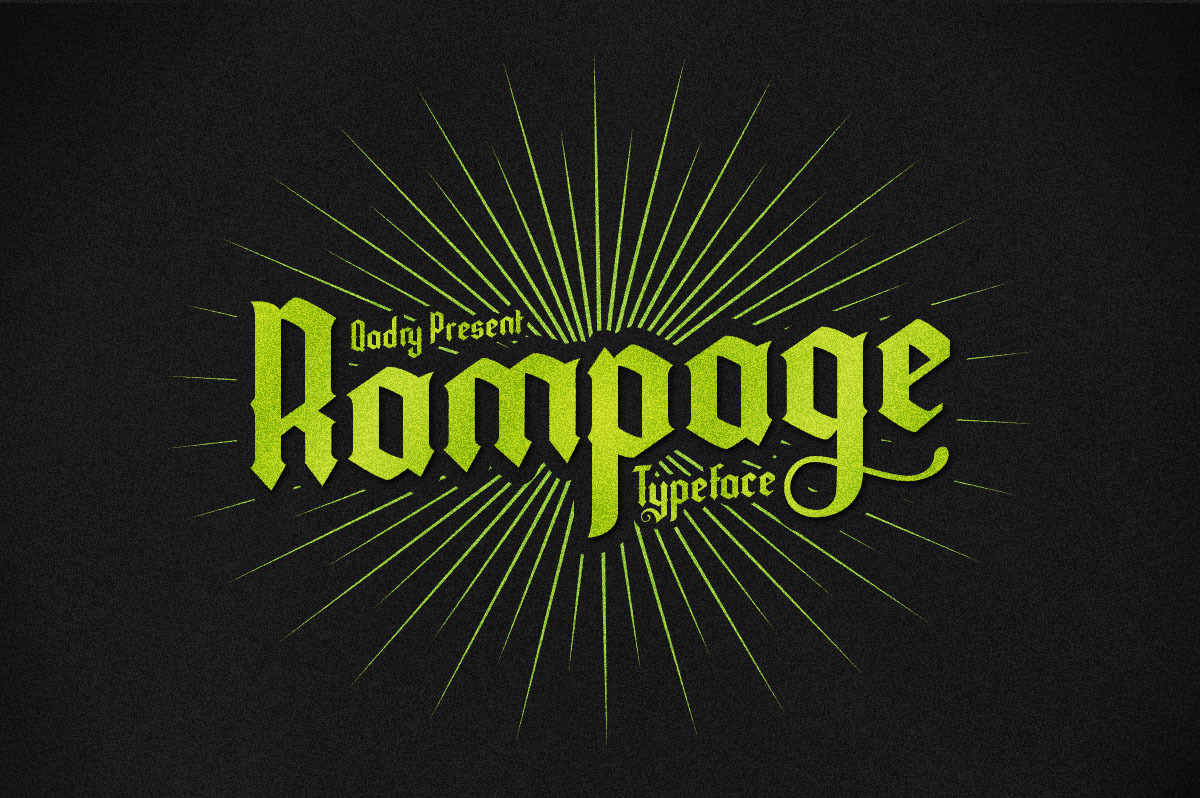
Rampage Font
Rampage is Blackletter style with simple looks, unique, and bold Total Glyph about 211, i Provide 2 extension font OTF & TTF. Hope you Enjoy it, see all glyph here : http://i820.photobucket.com/albums/zz127/hafidzqadry2211/rampage_zpsuzybqtiw.gif